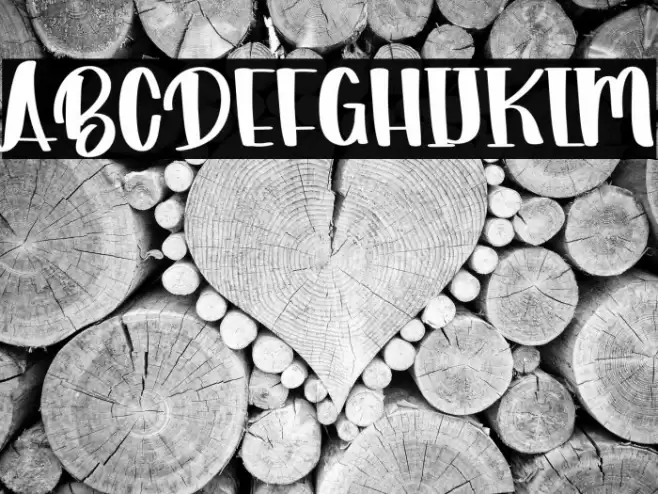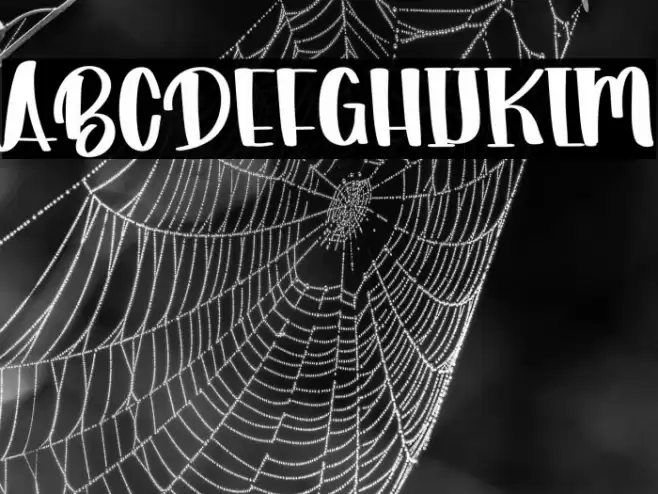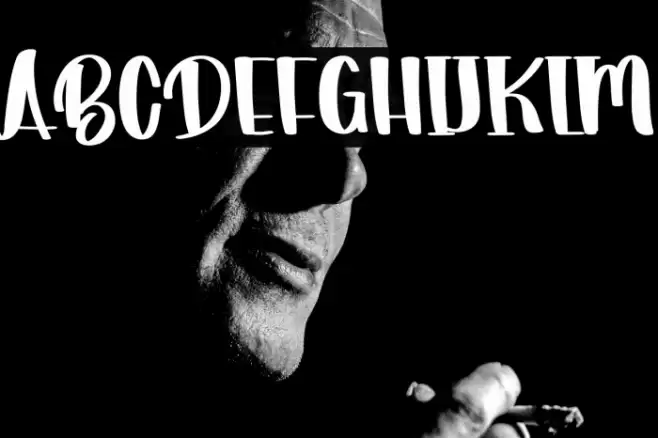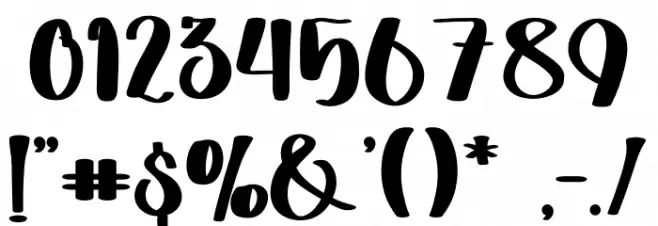
Christmas Promotion Font
Christmas Promotion Description
This font exudes a playful and festive charm, perfect for holiday-themed designs. The letters are bold and curvaceous, with a whimsical flair that adds a sense of joy and celebration. The uppercase and lowercase characters maintain a consistent style, with exaggerated curves and loops that create a lively rhythm. The numbers and special characters are equally expressive, ensuring a cohesive look across all text elements. This font is ideal for capturing the spirit of Christmas with its cheerful and inviting appearance.
A playful and festive font with bold, curvaceous letters perfect for holiday themes from Uncategorized fonts.
- Font: Christmas Promotion
- Proposed Projects: Ideal for Christmas cards, festive banners, holiday invitations, and seasonal promotions.
- Overall Style: Festive